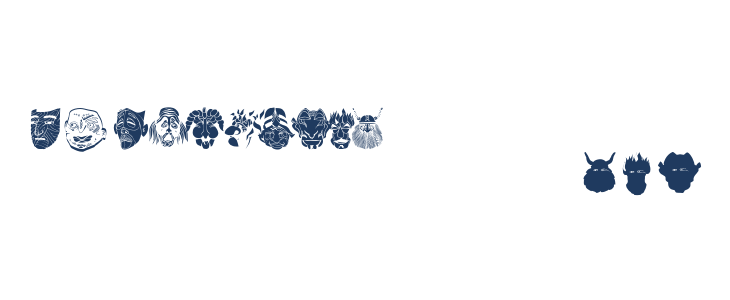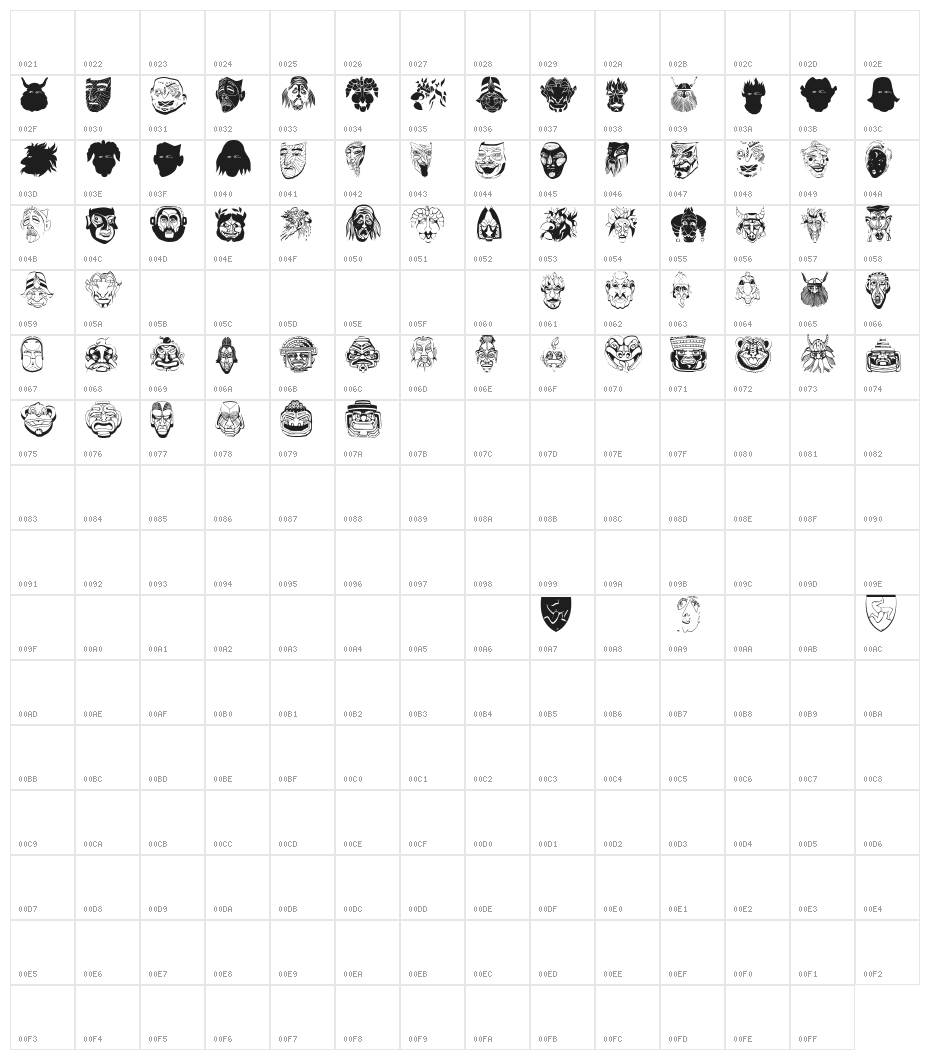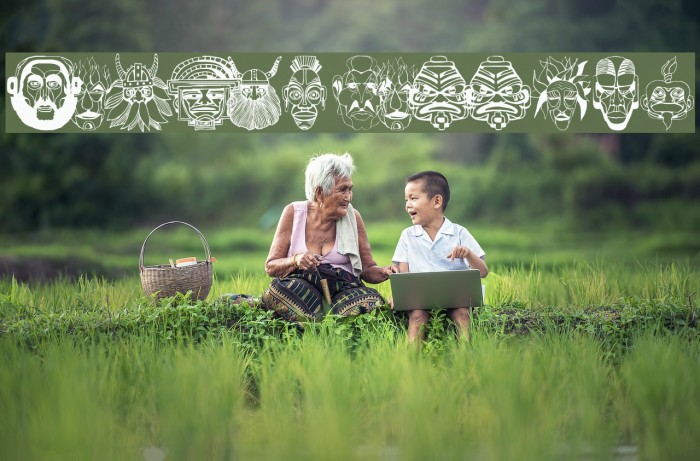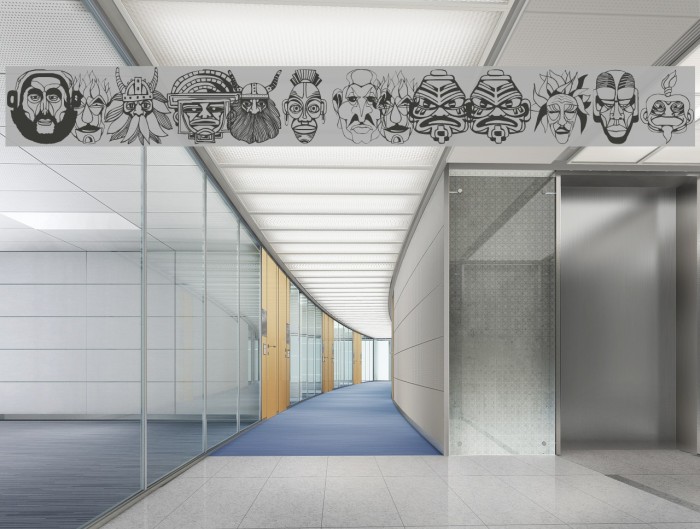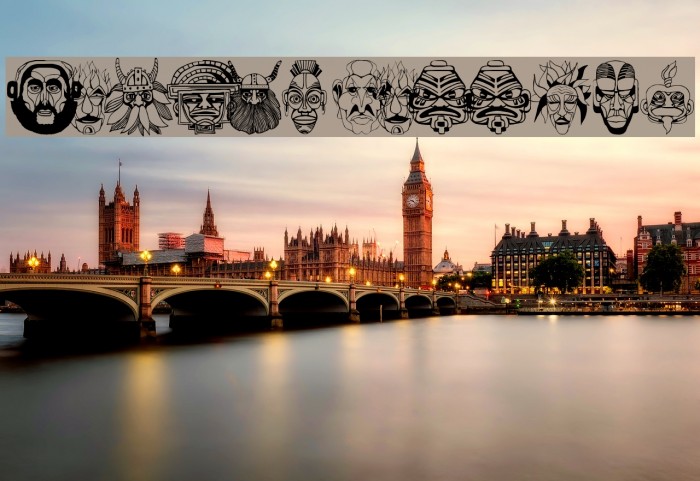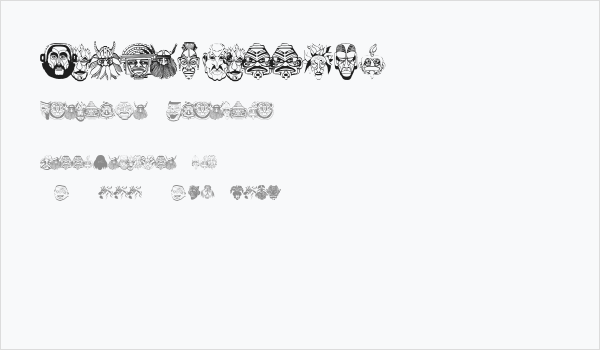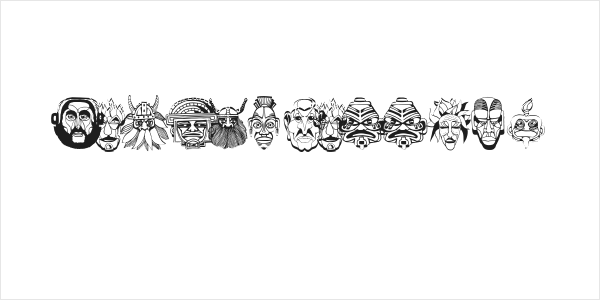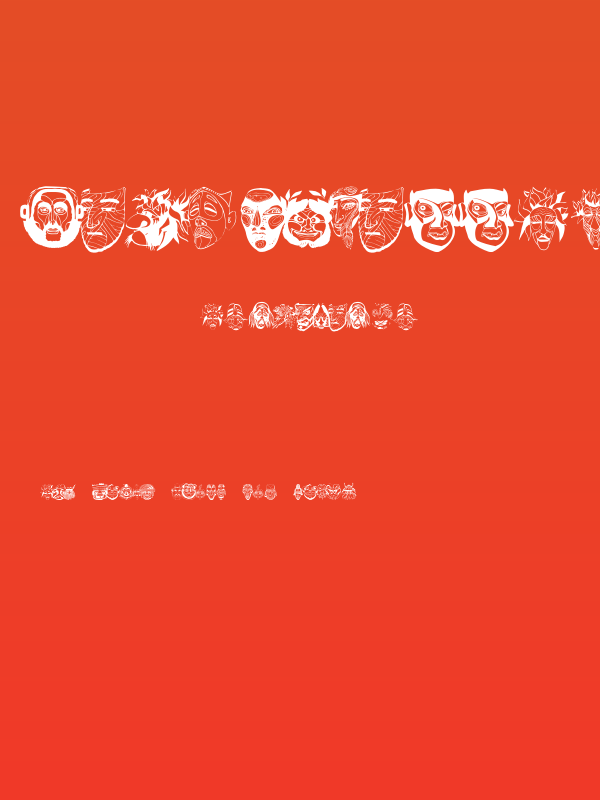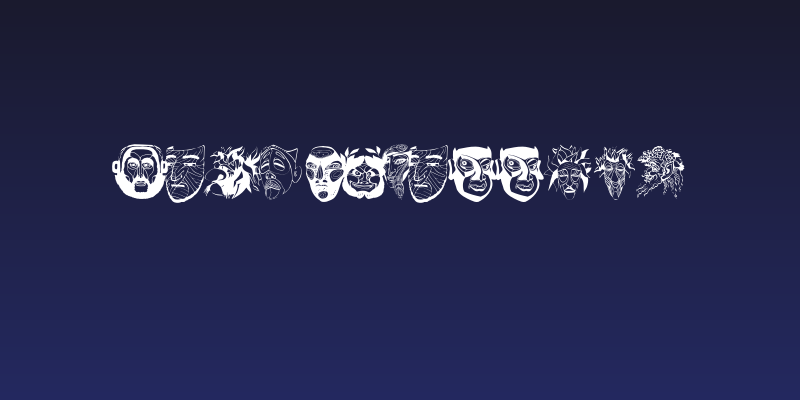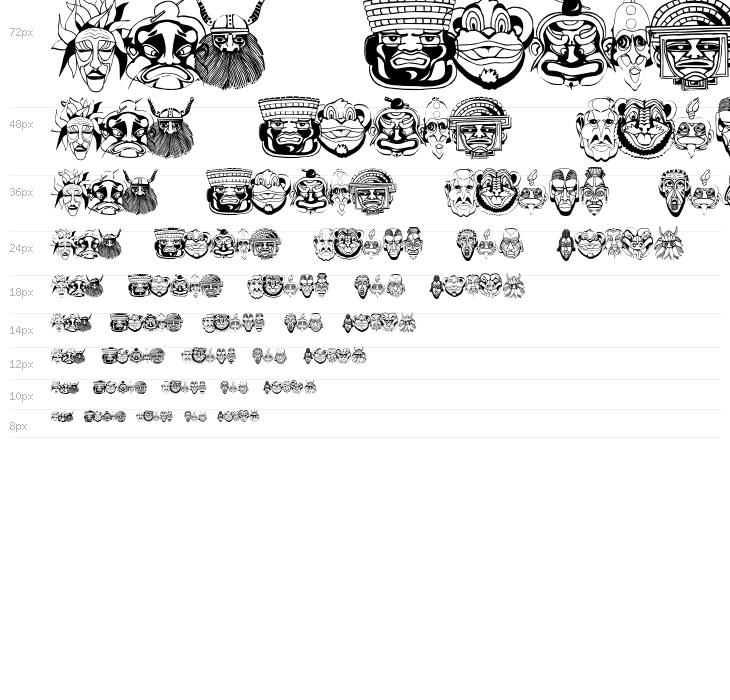
MaskenballTwo Font
MaskenballTwo Description
A highly decorative and eclectic display font composed entirely of intricate mask illustrations, each character represented by a unique, detailed face or mask design. The glyphs vary widely in style, line weight, and complexity, creating a visually dynamic and artistic collection.
| Overall Style | Decorative, Artistic, Eclectic |
| Use Case | Headlines, Logos, Posters, Artistic projects |
| Proposed Projects | Posters, album covers, event invitations, art projects, themed branding, and creative headlines. |